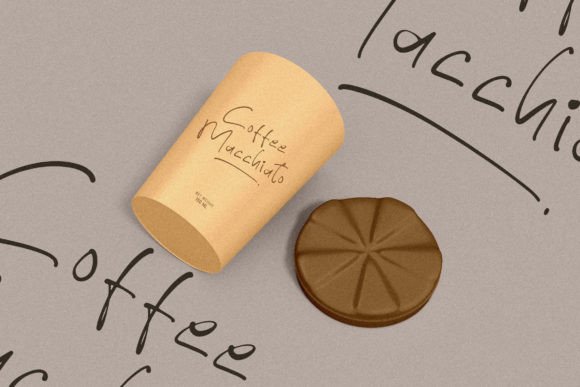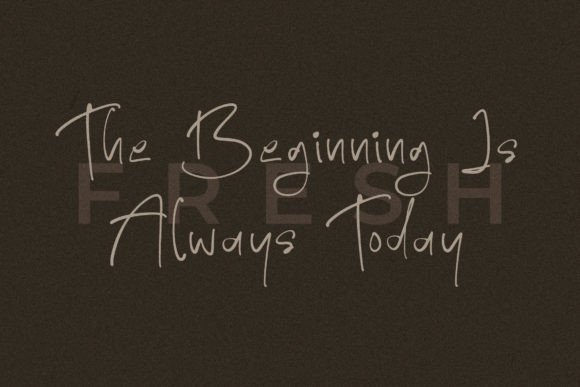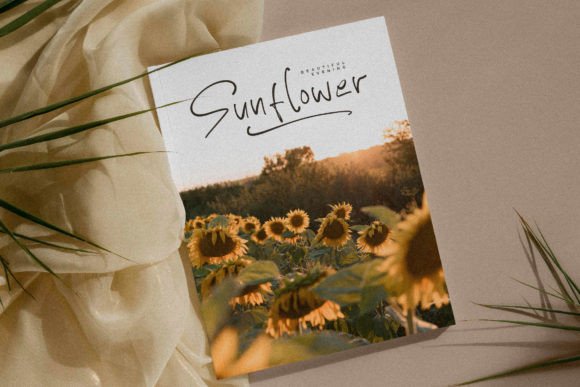
Introduction to Gabryelli Font
As a designer, have you ever been stuck in a creative rut, searching for that perfect font to bring your project to life? I’m sure we’ve all been there – scrolling through endless options, trying to find the perfect match for our design. But what if I told you about a font that’s been a game-changer for many creatives? Say hello to the elegant and flowing Gabryelli Font.
This beautiful handwritten font has been a favorite among designers for its delicate and well-balanced characters. Whether you’re working on a branding project, a wedding invitation, or a social media graphic, Gabryelli Font is sure to impress. Its versatility makes it a valuable resource for any design project, and the best part? It’s available for free download, complete with a transparent background, making it easy to integrate into your high-quality designs.
Key Features of Gabryelli Font
- High-quality, professional design suitable for creative projects and designs.
- Features a unique, elegant design that sets it apart from other fonts.
Honest Review: Gabryelli Font
I recently stumbled upon the Gabryelli Font, and I must say it’s a great addition to any design resource library. This free download is perfect for creative projects that require a unique touch.
- ✨ High quality: The font is crisp and clear, making it suitable for various design applications.
- ✨ Versatile: The Gabryelli Font is suitable for both digital and print-based creative projects.
- ⚠️ Limited character set: The font’s character set is somewhat limited, which may not be ideal for complex designs.
- ⚠️ Not suitable for small text: The font’s design may not be effective for small text sizes.
Overall, I’m impressed with the Gabryelli Font’s potential. While it has its limitations, it’s a great option for designers looking for a unique and high-quality font. With a little creativity, it can be a valuable addition to any design resource library.
Tips for Getting the Most Out of Gabryelli Font
For optimal results, use the Gabryelli Font with a transparent background to create visually appealing designs. Experiment with different font sizes and styles to add depth and creativity to your project.
The Gabryelli Font is perfect for various creative projects, including logos, social media graphics, and marketing materials. Its high-quality design makes it an ideal choice for businesses and individuals looking to elevate their brand identity.
Alternatives to Gabryelli Font
Alex Brush Font is a high-quality, hand-drawn font ideal for creative projects that require a personal touch. It features a transparent background, making it perfect for overlaying on images or using as a design resource. When to use: Brochures, flyers, and posters that need a unique and artistic feel. Comparison: Alex Brush Font has a more delicate and intricate design compared to Gabryelli Font, making it suitable for projects that require a softer aesthetic.
Lato Font is a modern sans-serif font that offers high quality and readability. It’s a great design resource for projects that require a clean and minimalistic look. When to use: Websites, apps, and other digital platforms that need a clear and easy-to-read font. Comparison: Lato Font is more straightforward and easy to read compared to Gabryelli Font, making it suitable for projects that require a professional and modern feel.
Carolyna Pro Font is a high-quality, elegant font perfect for creative projects that require sophistication and style. It features a transparent background, making it ideal for overlaying on images or using as a design resource. When to use: Wedding invitations, luxury branding, and other projects that need a high-end feel. Comparison: Carolyna Pro Font has a more refined and sophisticated design compared to Gabryelli Font, making it suitable for projects that require a premium and exclusive feel.